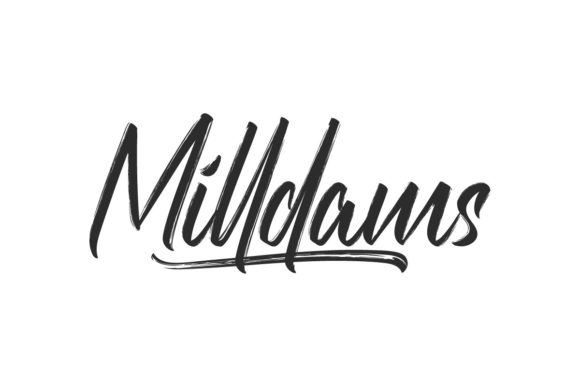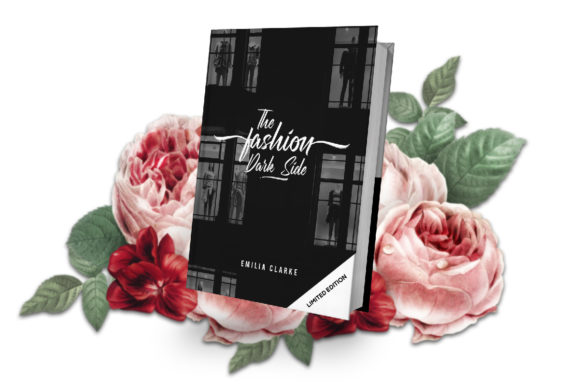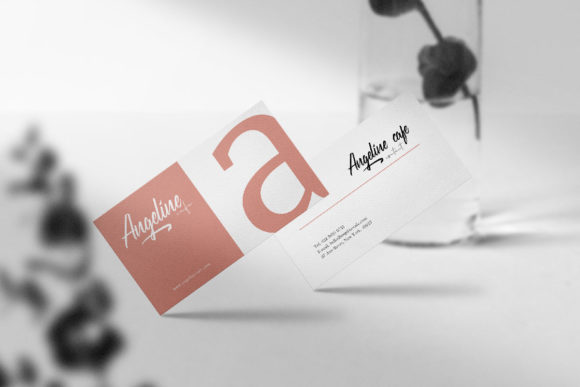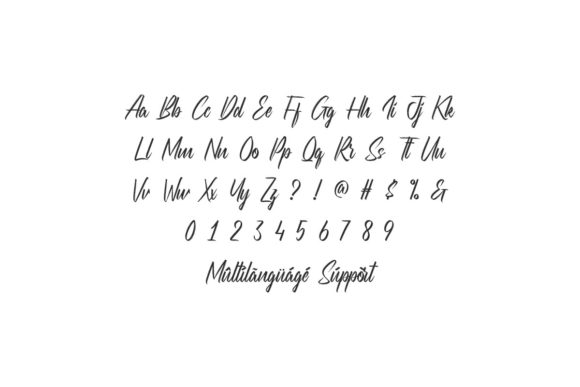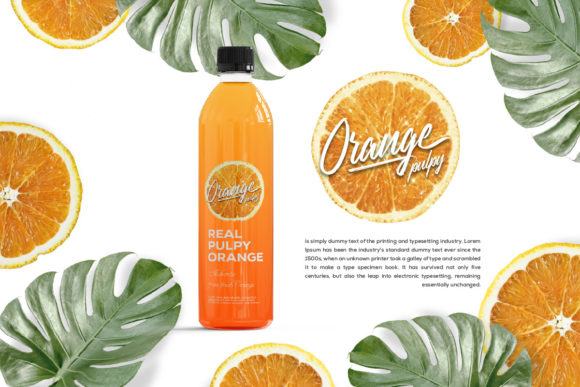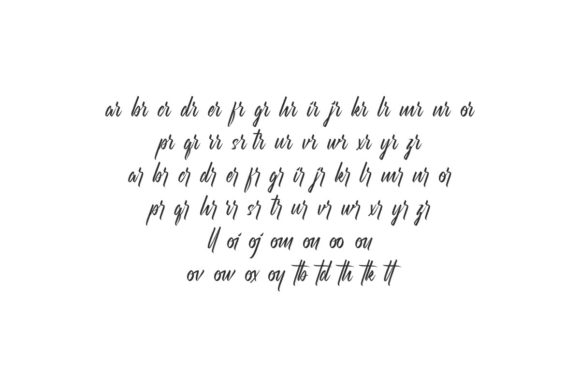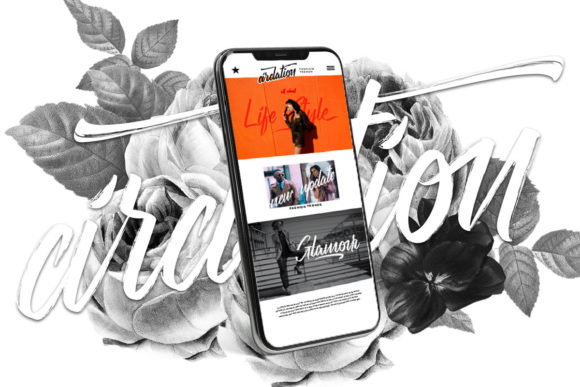
Milldams Font
About Milldams Font
Milldams is a lovely, brushed script font featuring charming, playful characters that seem to dance along the baseline. This font is PUA encoded which means you can access all glyphs and swashes with ease!